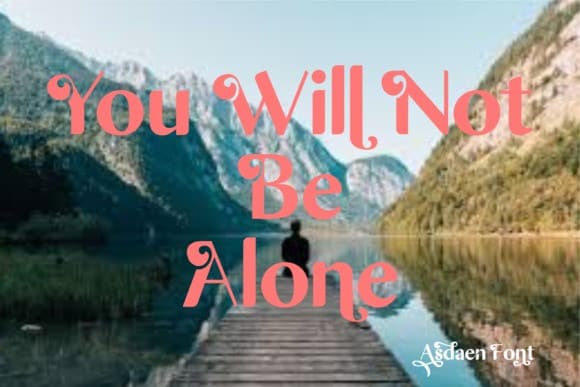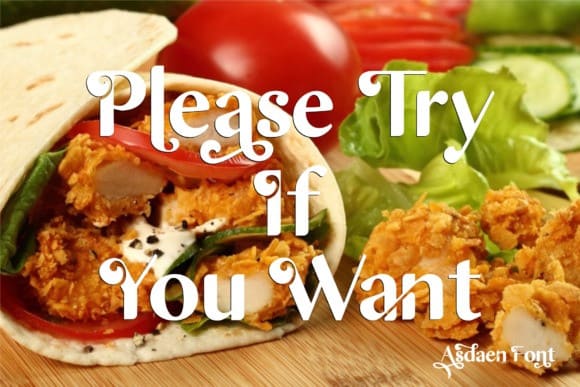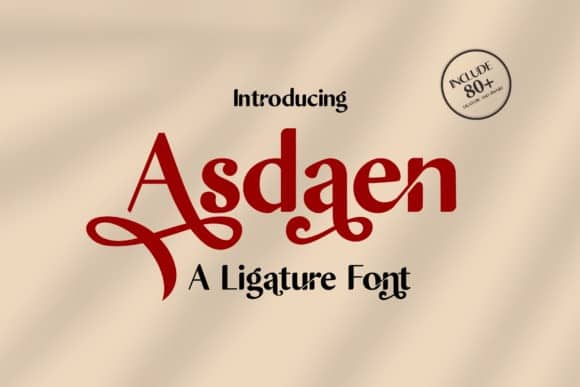
Asdaen Sans Serif Font
Asdaen Sans Serif Font is a playful, unique and versatile typeface with ligatures and alternates that you can combine to get curves and beautiful shapes just in seconds, to make it look beautiful, Asdaen has 80+ ligature, replace letters and punctuation that makes it very flexible, Ligature can be turned off if not needed, and with Asdaen Ligature becomes your attractive design style, It also comes with a swash ligature, This font is also equipped with 420 Glyphs, and also features OpenType.
Asdaen Sans Serif Font is perfect for all kinds of designs such as posters, business cards, wedding invitations, greeting cards, books, magazines, banners, logos, blogs and more.